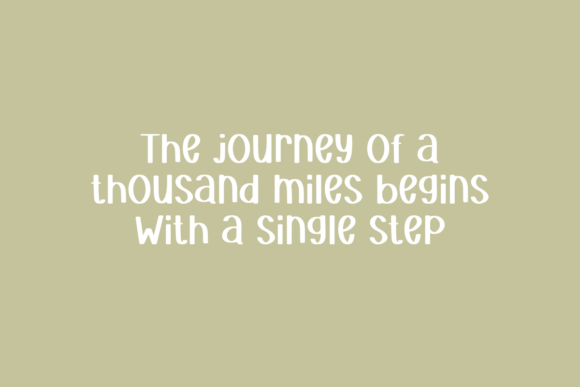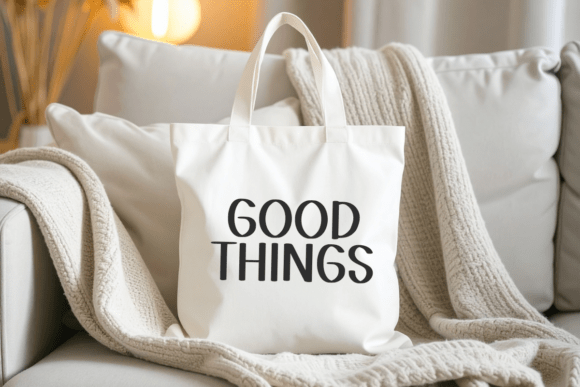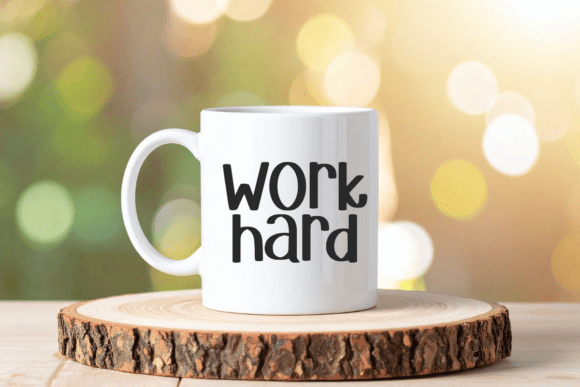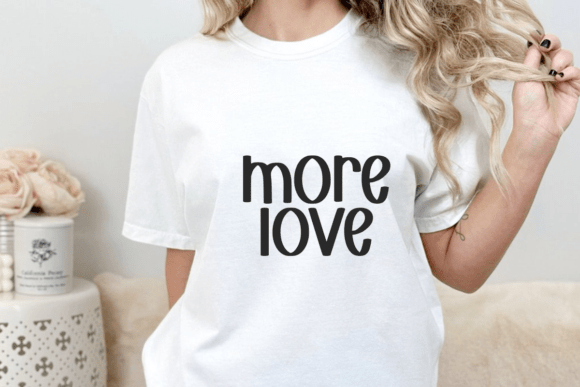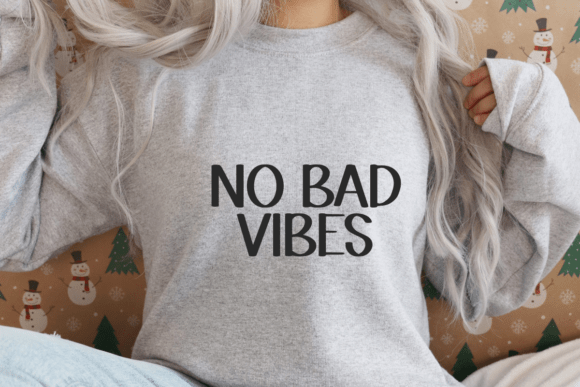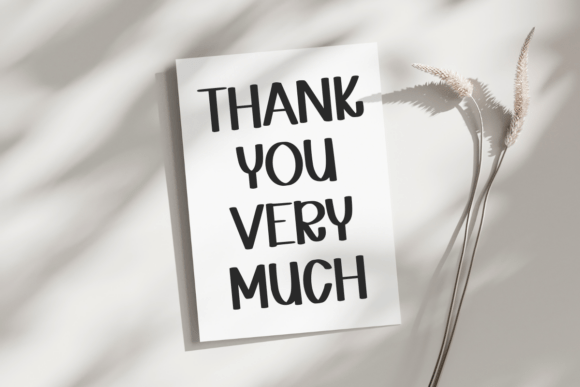
Introduction to Lovely Writing Font Font
Fonts play a crucial role in design, and the Lovely Writing Font font is a typeface that brings both character and versatility to any project. Whether you’re working on a branding project, a website, or a print design, the Lovely Writing Font font offers a unique style that can elevate your work.
Lovely Writing is a cute handwriting font designed with a soft, friendly, and natural look.
This font brings a warm, handcrafted feeling that works beautifully for craft projects, planners, stickers, kids’ worksheets, classroom printables, and DIY designs Its simple strokes and smooth curves make it easy to cut using Cricut and Silhouette, and perfect for crafting moms who love adorable handwritten styles.
Key Features of Lovely Writing Font Font
Why Choose Lovely Writing Font Font?
The Lovely Writing Font font is more than just a typeface – it’s a design tool that helps you communicate your message with style and clarity. Its unique character set and versatile design make it suitable for a wide range of applications, from elegant invitations to bold headlines.
With its carefully crafted letterforms and balanced proportions, the Lovely Writing Font font ensures readability and visual appeal across all mediums.
What makes Lovely Writing Font font special?
The Lovely Writing Font font stands out with its unique design, exceptional readability, and versatility across various design applications.